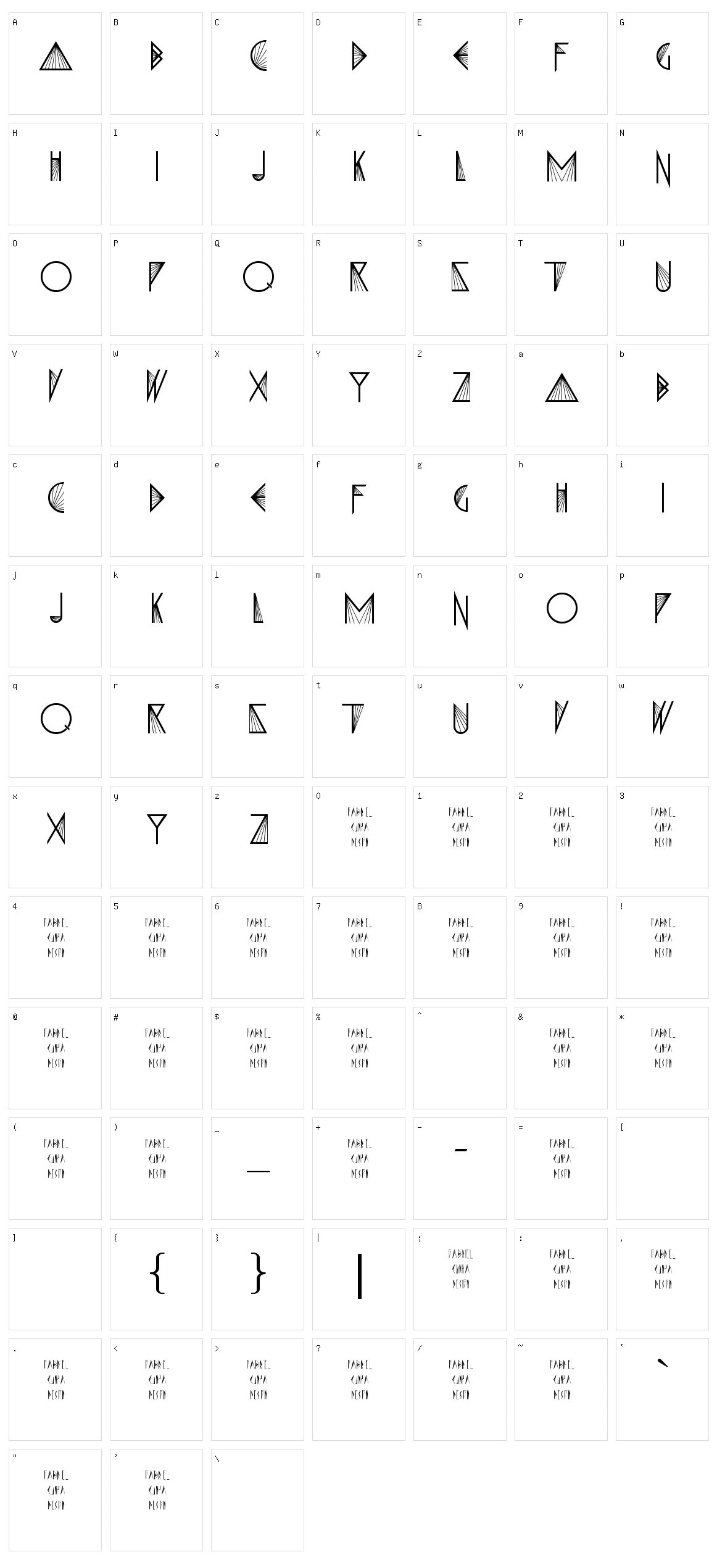
"X-PRISMA" is a font inspired by Katy Perry's
"Prismatic" tour. If you're from Katy's staff, please,
"X-PRISMA" é uma fonte inspirada na turnê de
Katy Perry "Prismatic". Se você é da equipe da